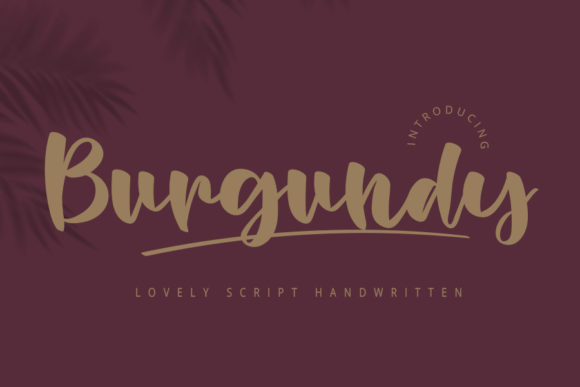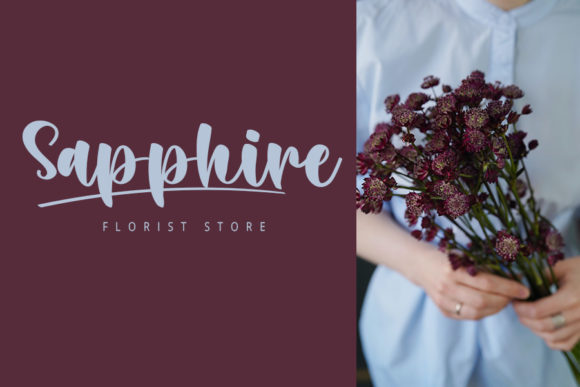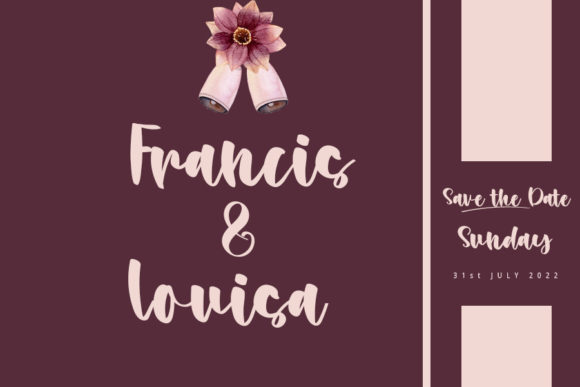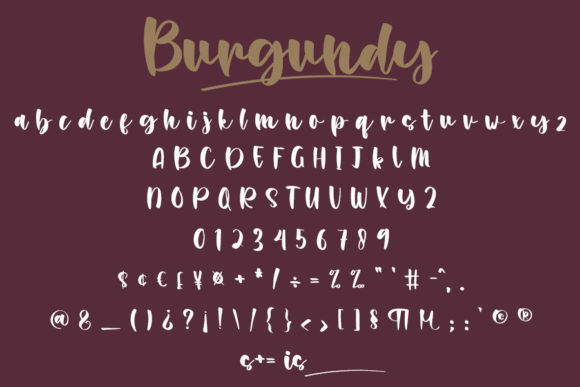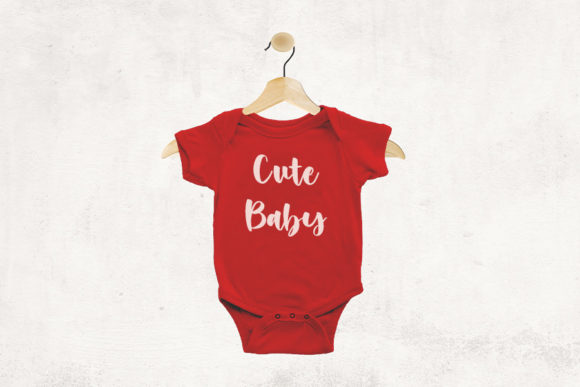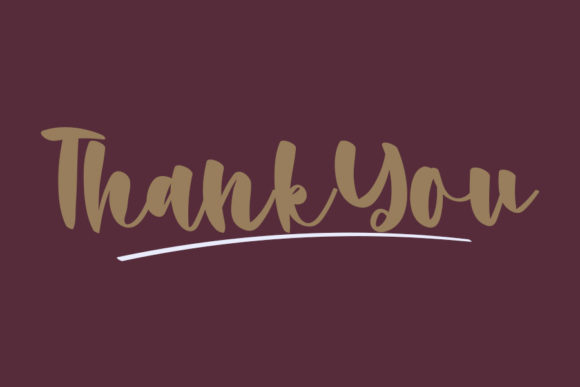
Burgundy Font
About Burgundy Font
Burgundy is a beautiful and refined script font. It has a classy, elegant and modern look that can be used for logos, branding, invitations, stationery, wedding designs, social media posts, and much more!